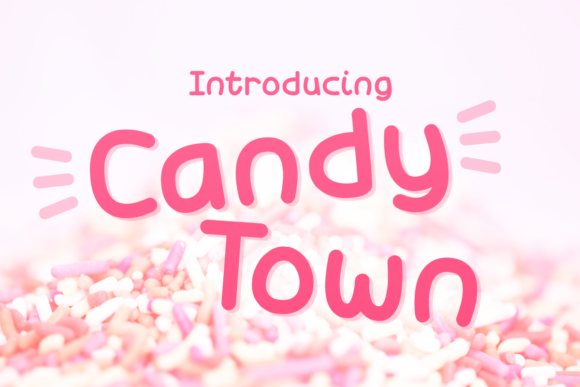
The Sweet Spot: Discovering the Charm of Candy Town Font
I’ll never forget the time I was working on a whimsical craft project, pouring my heart into creating the perfect invitation. I had the design concept nailed, but something was missing – the right font. I scoured the internet, tried out countless typefaces, but none seemed to capture the playful essence I was looking for. That’s when I stumbled upon Candy Town Font, a playful typeface with a unique look that instantly elevated my design.
So, what makes Candy Town Font so special? Let’s dive into the details.
- ✨ Unique and playful design that’s perfect for creative projects
- 🎉 Extensive character set, including glyphs and stylistic alternates
While Candy Town Font is an excellent choice, there are a few things to keep in mind:
- 🤔 Some characters may not work well in all contexts, such as all-caps headings
The Designer Inspiration: A Backstory
While the true story behind Candy Town Font’s creation remains a mystery, it’s easy to imagine that the designer was inspired by the whimsical world of childhood. Perhaps they drew inspiration from vintage candy advertisements, colorful candy stores, or the simple joys of childhood treats. Whatever the inspiration, the result is a font that’s equal parts playful and charming.
| Font Name | Candy Town Font |
| Author | Chequered Ink |
Q: What is Candy Town Font?
A: Candy Town Font is a playful typeface with a unique look, perfect for creative projects that require a touch of whimsy.